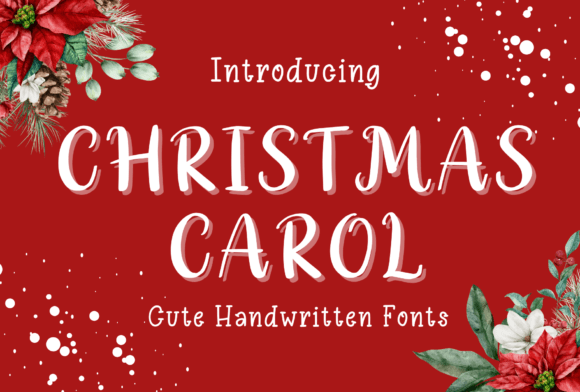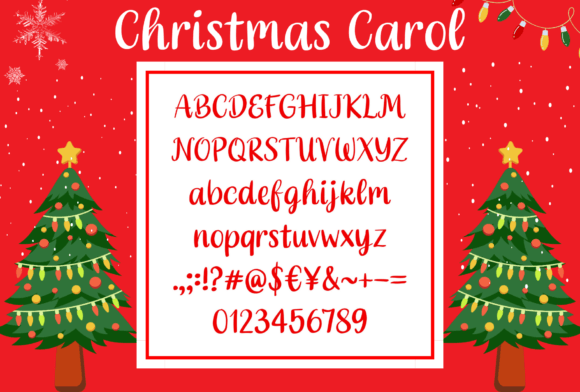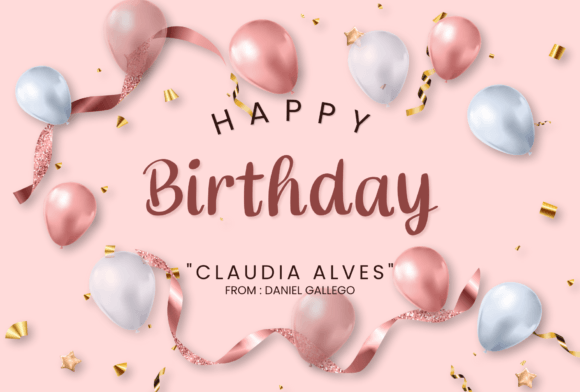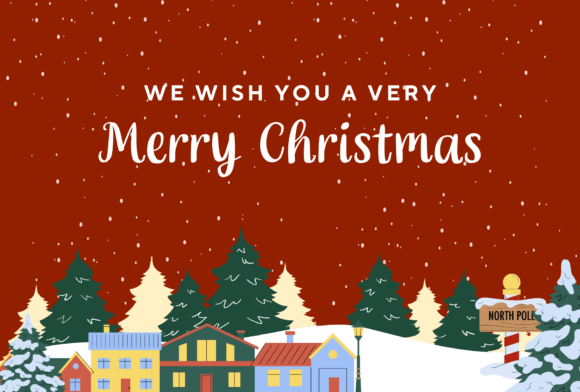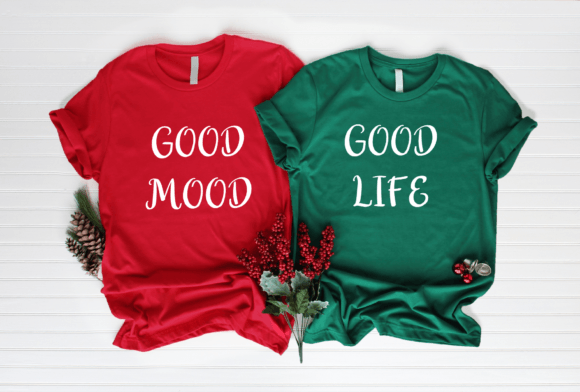
Christmas Carol Font
Christmas carol is playful and cute with a handwritten font. You can use it on Christmas cards, Anniversary cards, Mother’s day cards, Birthday cards, and Valentine cards. For products such as t-shirts, mugs, pillows, planners, stickers and so much more.